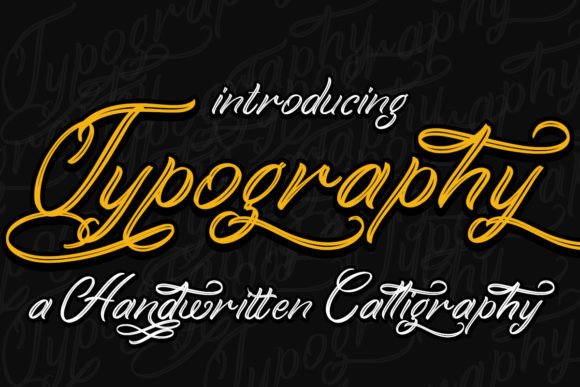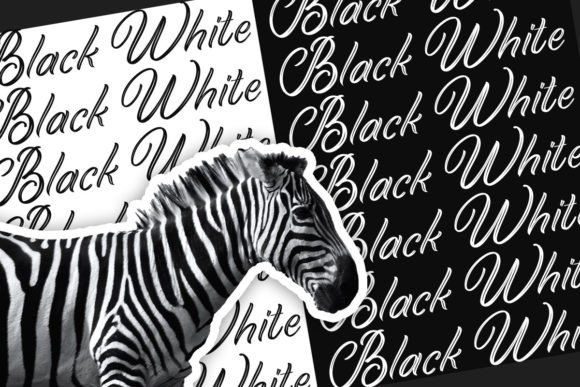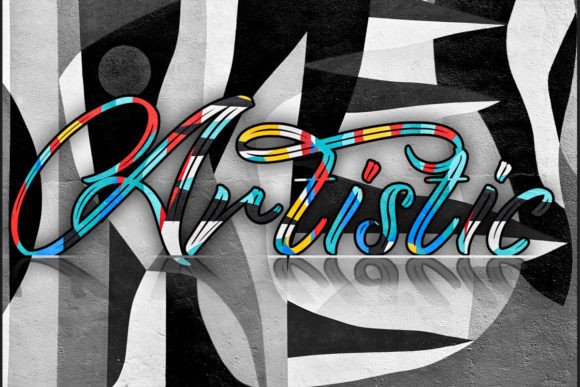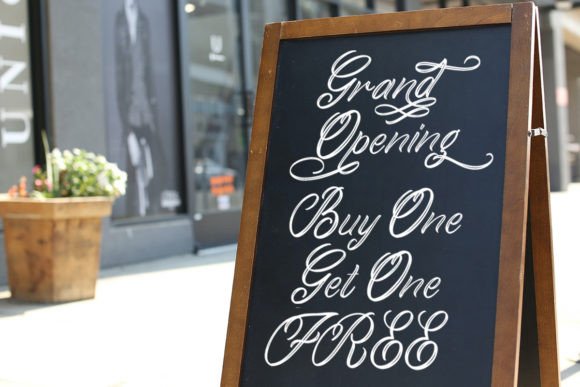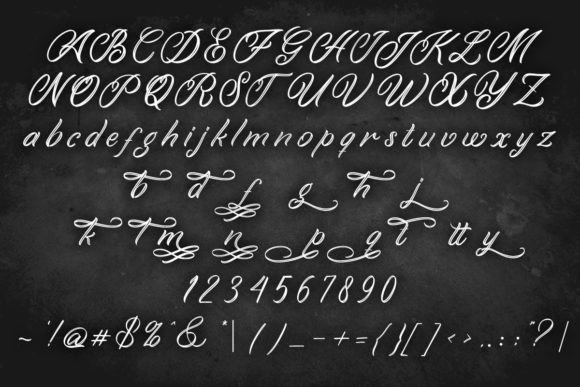
Typography Font
About Typography Font
“Typography is a unique handwritten font that comes equipped with alternate features rarely found in other fonts. With meticulous kerning, this font fulfills the dreams of designers, thanks to its elegant shape that exudes beauty.
The classic style of Typography makes it incredibly versatile, suitable for a myriad of projects. Whether it’s invitations, labels, menus, logos, fashion, make-up, stationery, letterpress, romantic novels, magazines, books, greeting/wedding cards, packaging, and more, this font adds a touch of timeless elegance.
The craftsmanship of Typography is evident in its neat kerning and elegant shapes, making it stand out among other fonts. Designers will appreciate its rare alternate features that open up creative possibilities, allowing for unique and captivating design solutions.
Imagine Typography enhancing your projects, adding a classic and elegant handwritten touch that elevates the overall aesthetic. Its versatility becomes the defining element that sets your designs apart, creating a visual experience that resonates with sophistication and style.
As you explore the nuances of Typography, you’ll discover its potential to transform various projects into visually delightful expressions. Let it be the font that brings a touch of classic elegance to your creative vision, making your designs stand out with a timeless and sophisticated aesthetic. With Typography, every stroke becomes a brushstroke of beauty, making it an invaluable asset for designers seeking a unique and elegant font.”